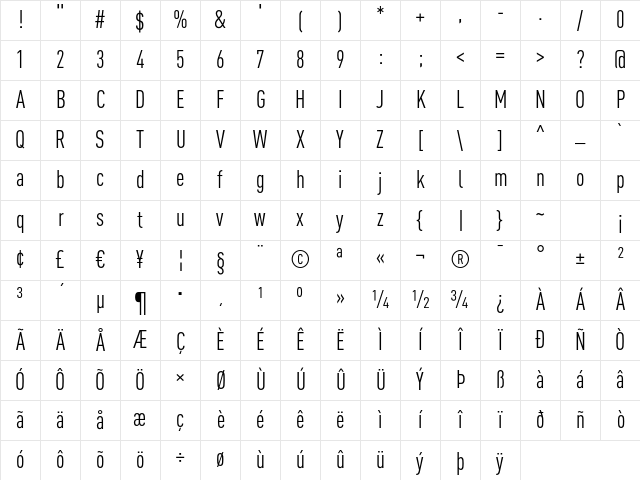
DINCond-Regular Regular
Design Context for DINCond-Regular
DINCond-Regular is a composed and adaptable typeface that performs quietly and consistently across a wide range of design contexts. Its narrow stance lets it pack a punch even in space-constrained designs.